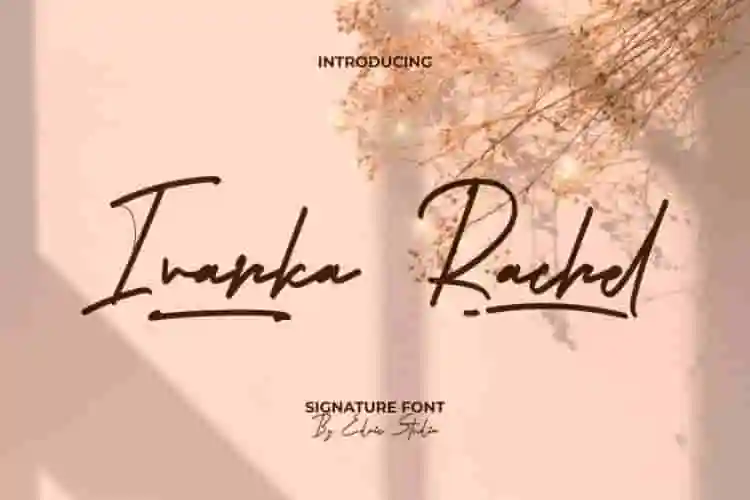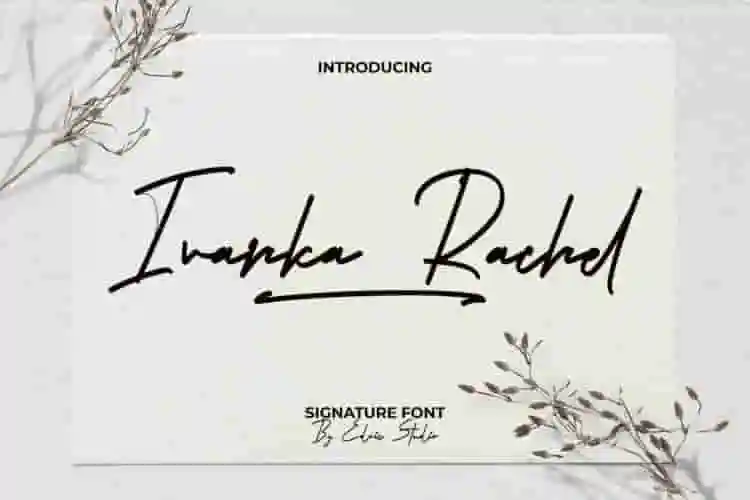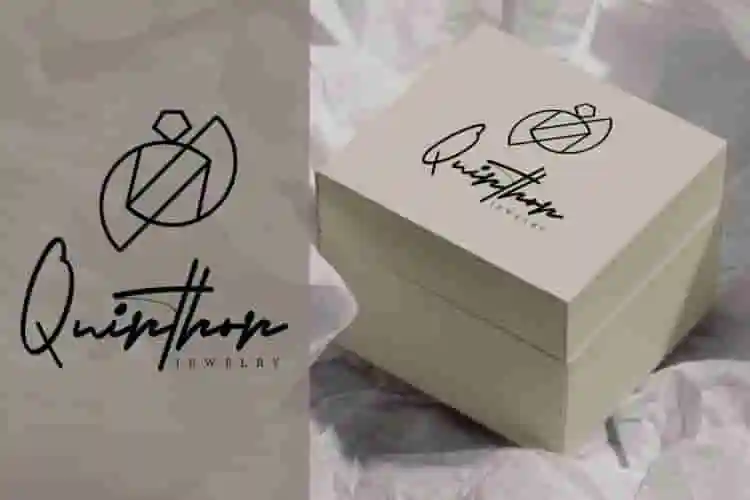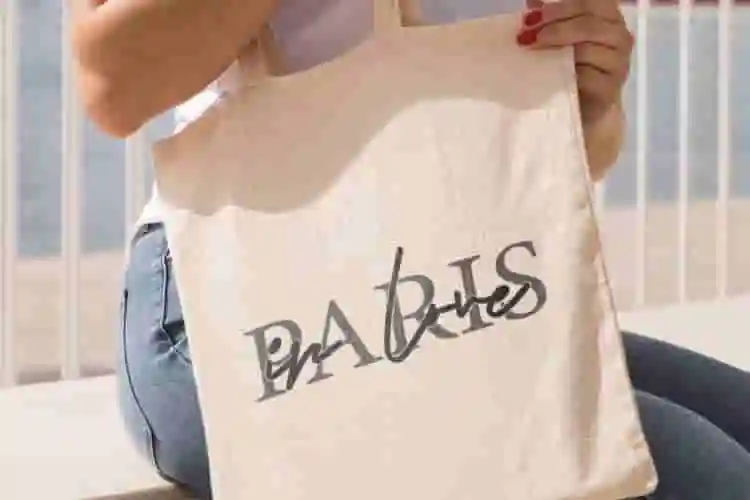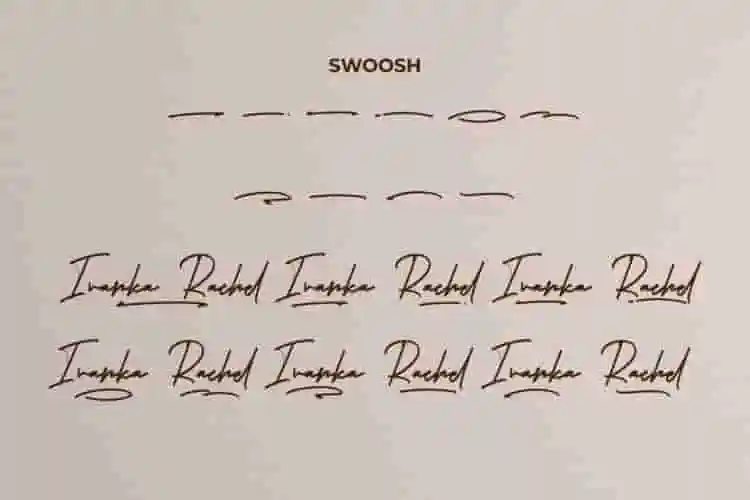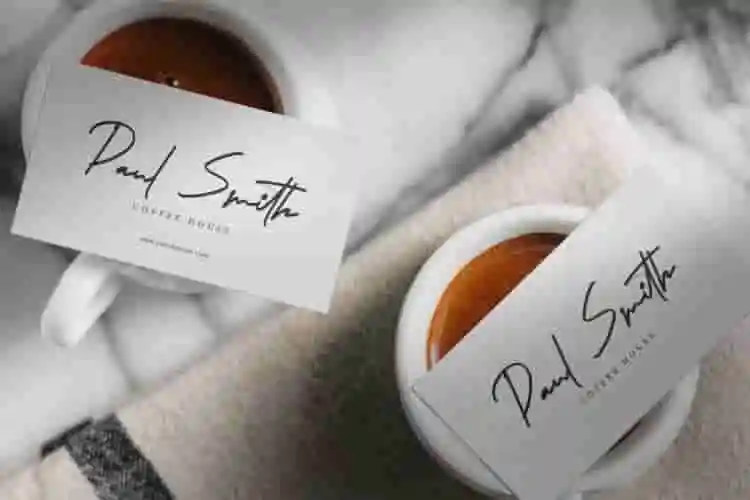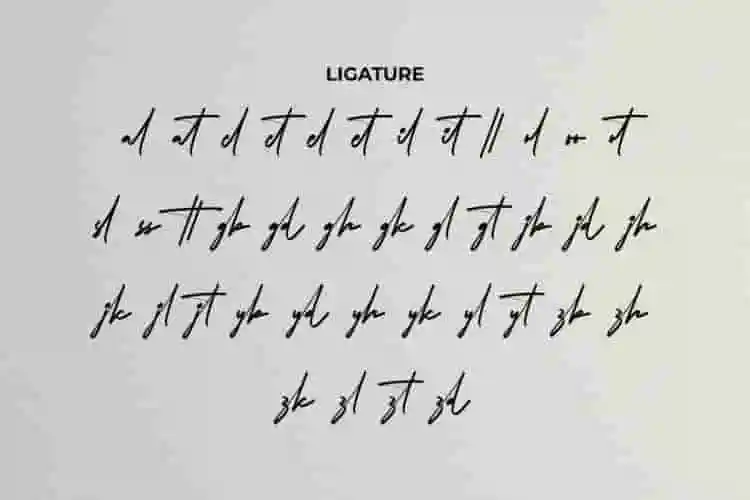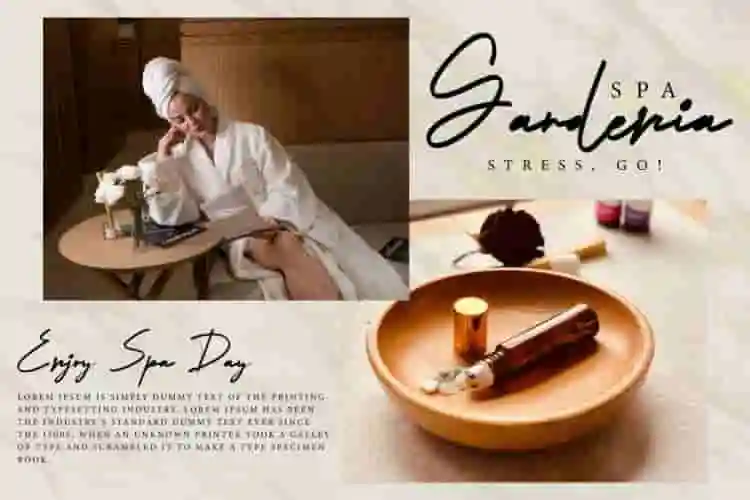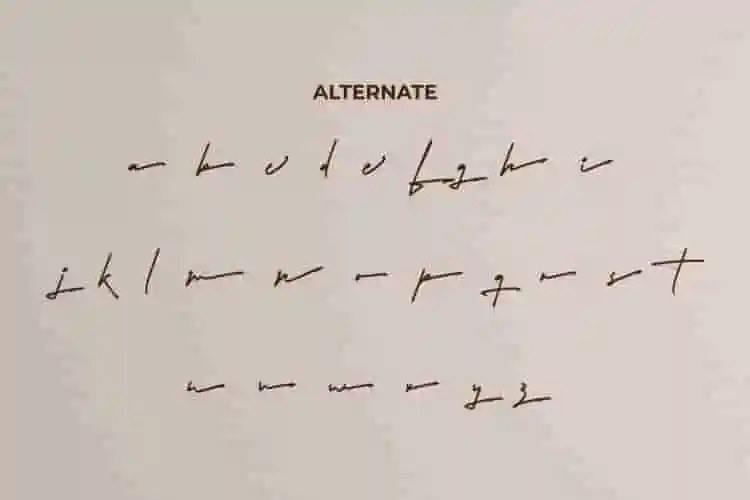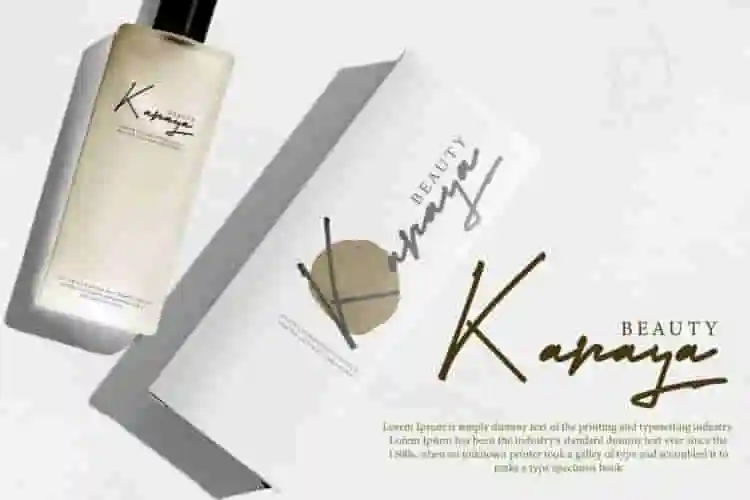
Ivanka Rachel Font is an authentic signature style and has a natural flow, now you can create custom personal signature. It suitable for industries like beauty product, business, craft, jewelry, publishing, printing, culinary, café, hotel and spa, or anything that needs signature looks.
Introducing Ivanka Rachel, a graceful signature script font that brings elegance and personality to your design. Inspired by natural handwriting and high-end fashion labels, this font is crafted for those who love a clean, feminine, and luxurious aesthetic.
With its fluid strokes and realistic pen pressure, Ivanka Rachel is perfect for logos, business cards, social media posts, wedding invitations, and beauty packaging. It feels personal, polished, and effortlessly stylish.
Looking for a modern, elegant font to elevate your brand? Meet Ivanka Rachel, a signature-style script font designed to bring a personal and professional touch to your work. With smooth curves and a natural flow, this font mimics authentic handwriting — clean, classy, and effortlessly stylish.
- Authentic Handwritten Style
- Perfect for Branding
Ivanka Rachel Font had been tested Works well on PC & Mac. This font has a uppercase and lowercase, number and symbols, a large of ligature, lowercase alternative and also stylish swoosh. Ivanka Rachel is an elegant and professional signature inspired by handwriting using a pen. Perfect for any project such as business card, signage, brand logo, label, quote, web or blog, brochure, invitation, book title, etc.